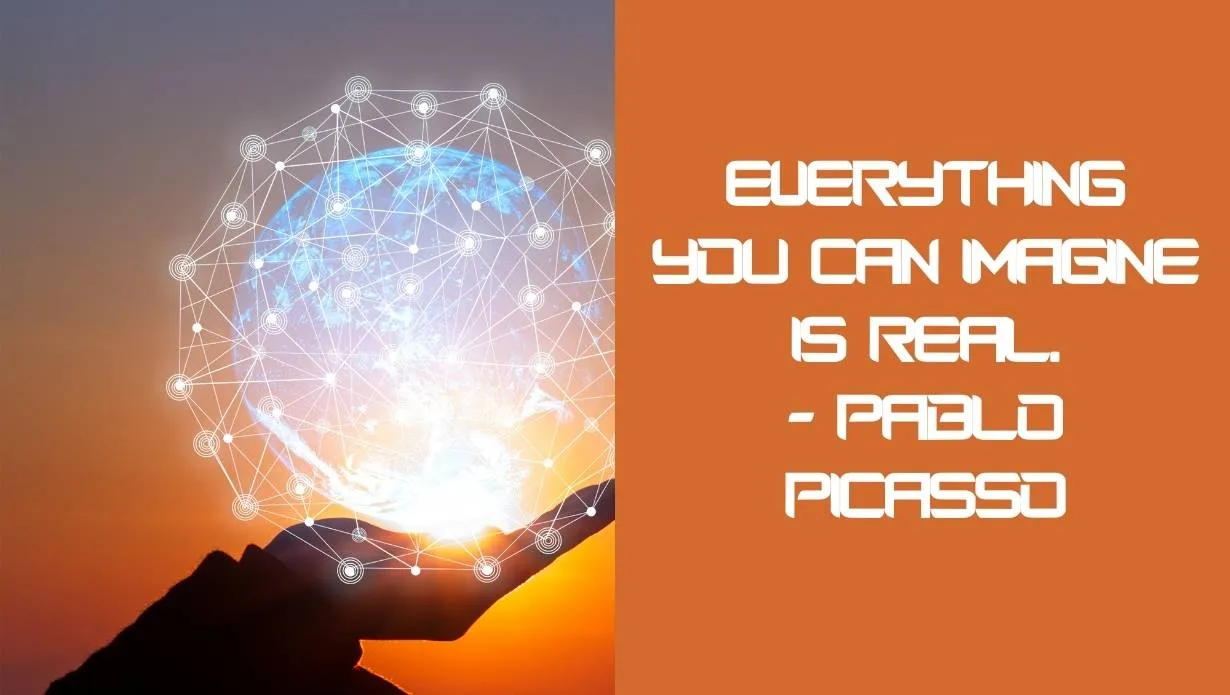
Let we are going to introduce a gorgeous typeface that has clear surfaces and appearances named Spiderman Font. The body texture of this typeface is very stylish and easy to understand for the Reader. This font is published under the banner of the SpideRaYsfoNtS Foundry.
This typeface is designed by the famous notable graphic designer Branded Quotes.
The release year of this font is 23 august 2011 and after its released, this typeface achieved more Popularity. This font is a member of the Fancy font family. This font is very similar to the Shopkins Font.
| Name | Spiderman Font |
| Designer | The Branded Quotes |